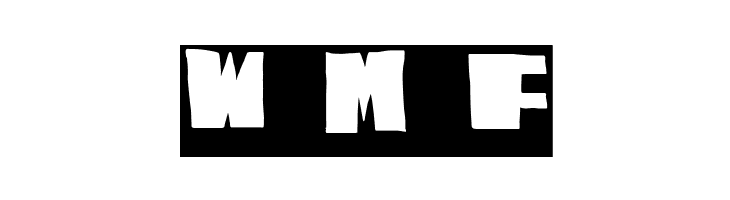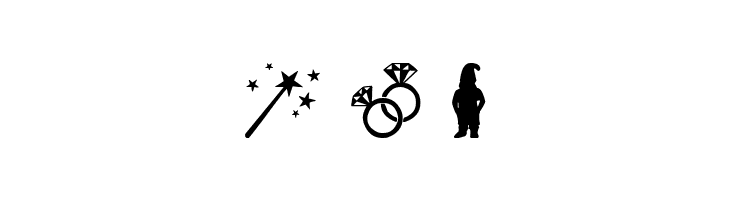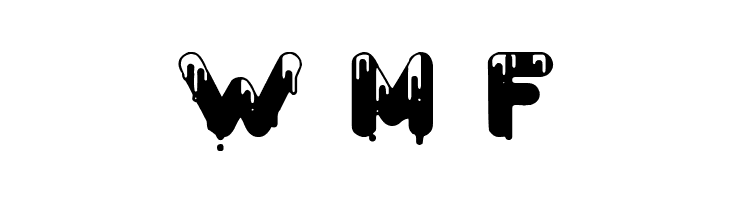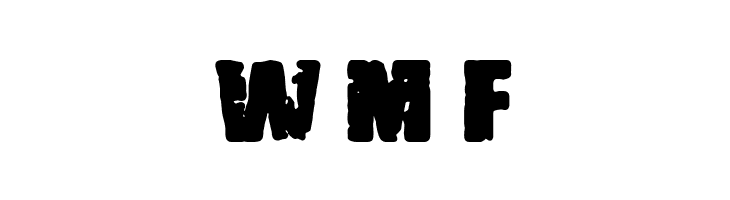
A bold, graffiti-inspired font with blocky, angular characters and a rebellious urban style.
Decorative fairy tale icon font with playful, bold silhouettes.
A bold, hand-drawn font with jagged edges and a dynamic style.
A bold, dripping font with a playful and artistic style.
A bold, distressed font with rough, chaotic edges and a grunge aesthetic.
A bold, textured font with a vintage, industrial feel.
A bold, distressed font with a vintage, industrial look.
A bold dingbat font with diverse sports and fitness pictograms.
A playful, bubble-like font with bold, rounded characters.
A bold, dripping font with a grunge and horror aesthetic.